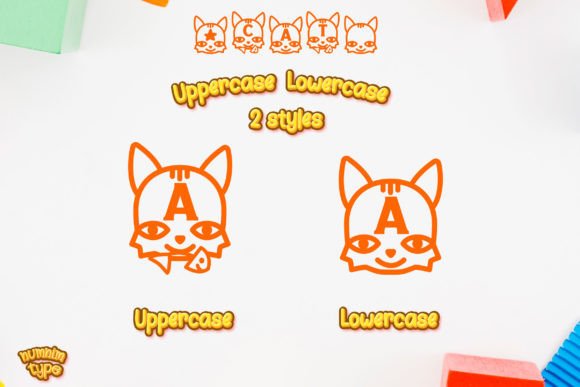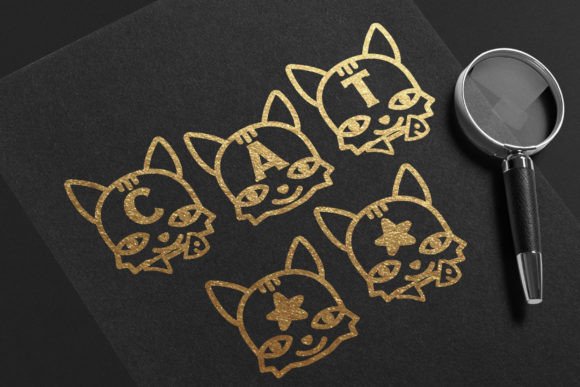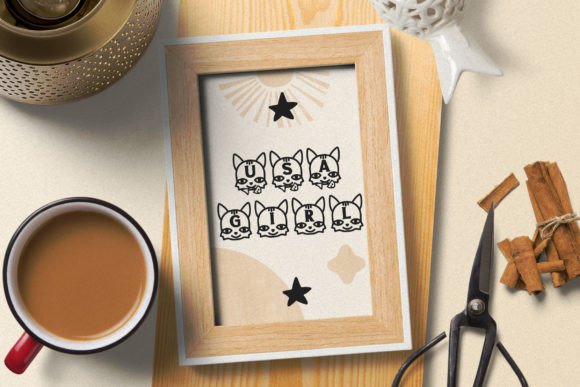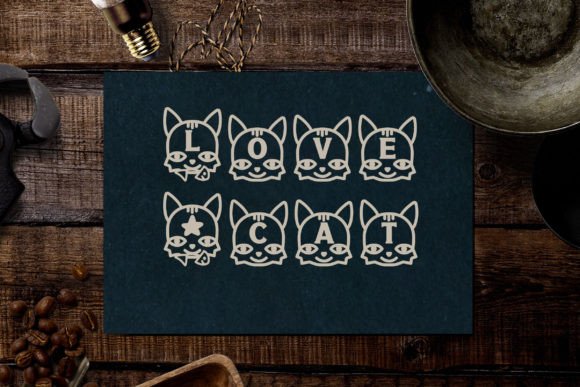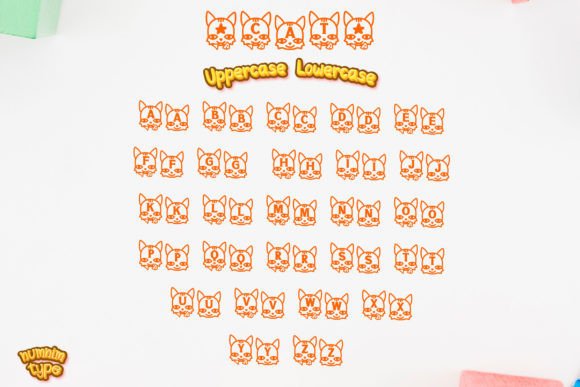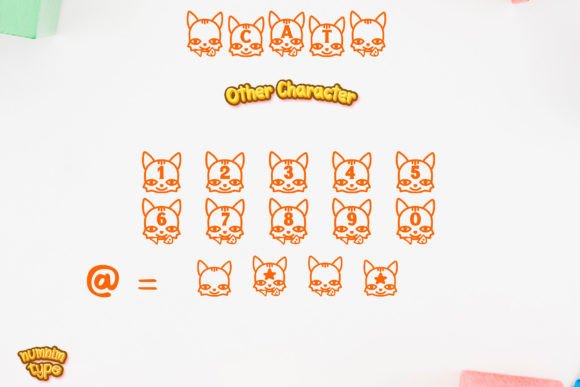
The Purr-fect Font for Your Next Creative Project
As a designer, have you ever stared blankly at a blank page, waiting for inspiration to strike? It’s a feeling we’ve all been there. For me, it’s often when I’m browsing through font collections that the spark of creativity hits. And that’s exactly what happened when I stumbled upon Cat Font – a fun, playful, and uniquely crafted decorative font that’s just begging to be used.
Cat Font is the perfect addition to any design project, from stickers and mugs to t-shirts and event invitations. Its quirky characters bring a touch of whimsy and personality to any design, making it a valuable asset for designers looking to add some visual interest to their work. And with its PUA encoding, accessing all glyphs and alternates is a breeze – making it a joy to use in your next creative project.
Cat Font Key Features
- Font Family: Cat Font is a digital font designed for various applications, including signage, advertising, and editorial content.
- Character Set: The font includes a wide range of characters, including Latin, Cyrillic, and Greek alphabets, as well as punctuation marks and symbols.
- Unique Characteristics: Cat Font features a playful, handwritten style with exaggerated letterforms, creating a fun and eye-catching visual effect.
Designer Review: Cat Font
Overall, I’d say that Cat Font is a quirky addition to any digital project. Here are some things that work well:
- ✨ Uniqueness: Cat Font is definitely one-of-a-kind, and that’s what makes it stand out. It’s not your run-of-the-mill sans-serif or serif font.
- ✨ Whimsical feel: The font has a playful, whimsical feel to it that’s perfect for projects that need a bit of personality.
- ⚠️ Readability: While the font is visually appealing, it can be a bit difficult to read, especially at smaller font sizes.
- ⚠️ Limited versatility: Cat Font might not be the best choice for projects that require a lot of body text, as it can get overwhelming.
In terms of overall impression, I’d say that Cat Font is a great choice for projects that need a bit of flair, but it might not be the best fit for every project. Use it sparingly and strategically to add some personality to your designs.
- Use Cat Font for titles and headings to add a touch of whims